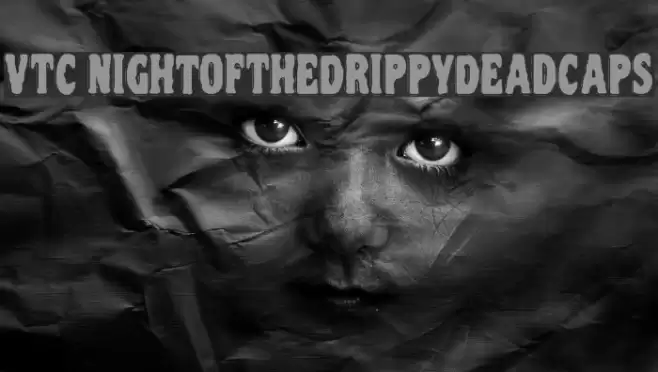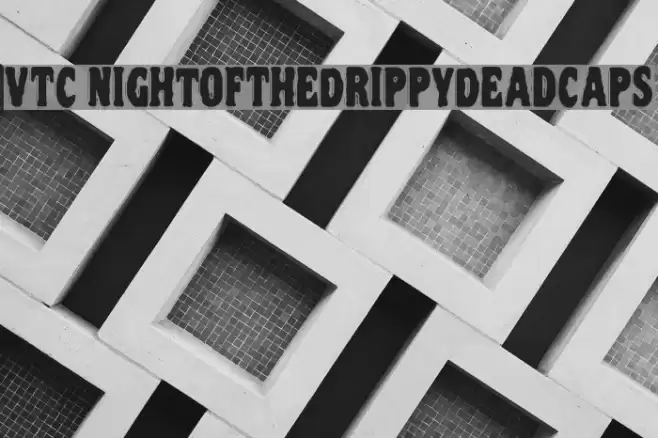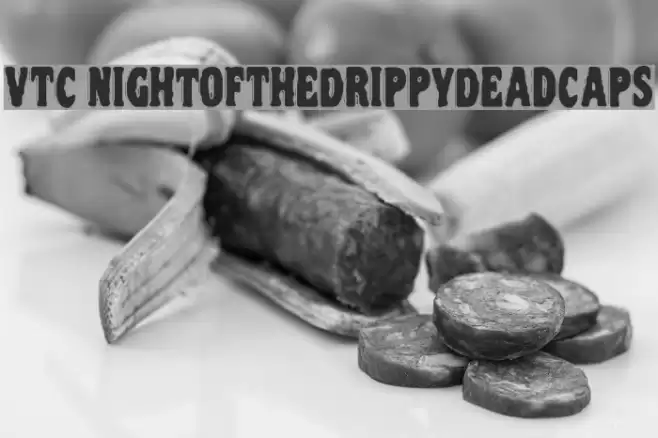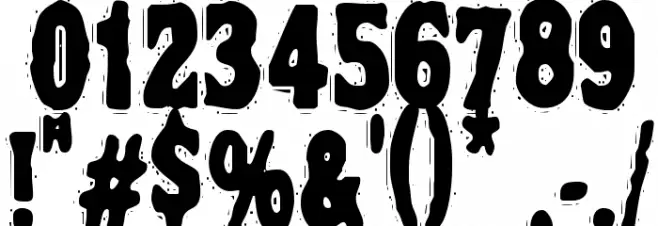
VTC NightOfTheDrippyDeadCaps Font
VTC NightOfTheDrippyDeadCaps Description
This font features a bold and playful design with a dripping effect that gives it a spooky, horror-themed appearance. The characters are thick and rounded, with uneven edges that create a sense of movement and fluidity. The uppercase and lowercase letters maintain a consistent style, enhancing the cohesive look of the font. Numbers and special characters are also included, each with the same dripping motif, making it ideal for thematic designs. The font's unique style is perfect for creating eye-catching titles and graphics that need a touch of the macabre.
A bold, dripping font with a spooky, horror-themed style from Uncategorized fonts.
- Proposed Projects: Ideal for Halloween-themed projects, horror movie posters, haunted house flyers, and spooky event invitations.
- Use Case: Headlines, Posters, Logos